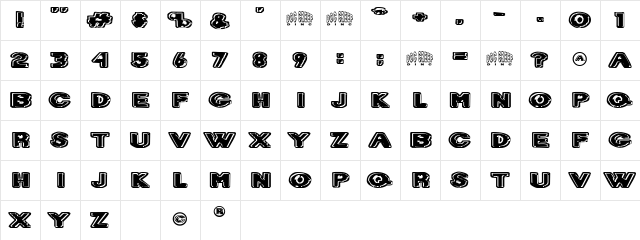
Dr. Creep Regular Font Preview
Dr. Creep Regular
Design Context for Dr. Creep Typeface
Dr. Creep carries an unsettling edge — its distorted letterforms are built to unsettle, perfectly suited to horror, Halloween, and dark creative work.
Perfect for anything that needs to unsettle — game titles, horror branding, and macabre invitations.
Font Pairing: Pair with a clean neutral sans-serif for body copy to let Dr. Creep's character lead without overwhelming the composition.
Pro Tip: Use Dr. Creep at larger display sizes for maximum impact. Consider generous tracking to let the disturbing character of each letterform breathe.